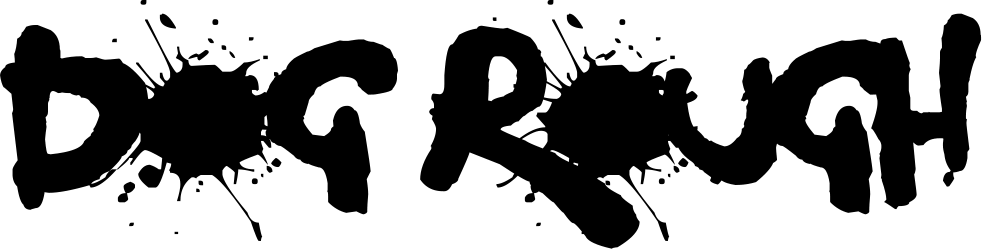
Dog Rough Font
Dog Rough is a splatter font that does not support lowercase letters. The characters of this font are similar to the images on the canvas. Dog Rough is the right font for you if you want to attract the attention of young…
Dog Rough is a splatter font that does not support lowercase letters. The characters of this font are similar to the images on the canvas. Dog Rough is the right font for you if you want to attract the attention of young audiences to your posters, logos, or web pages by conveying a sense of freshness, warmth, and dynamic.